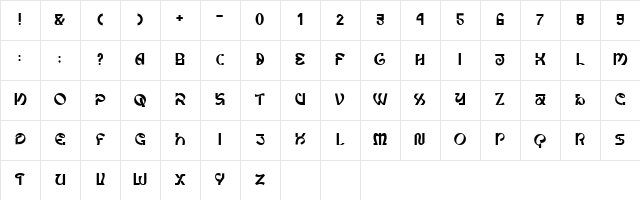
Curtis Regular Free Font
Curtis Regular
Foundry: Creatype Studio Co.
Designer: Rian Rahardi
Design Context for Curtis
Curtis is a composed and adaptable typeface that performs quietly and consistently across a wide range of design contexts.